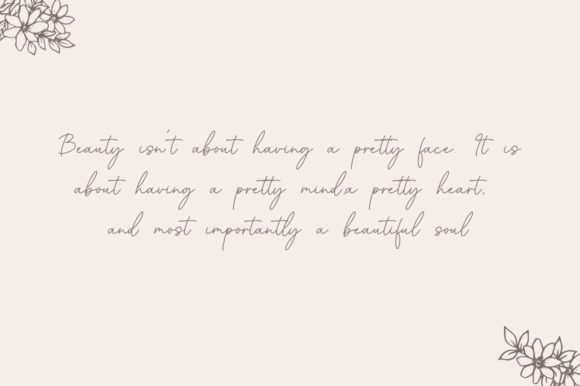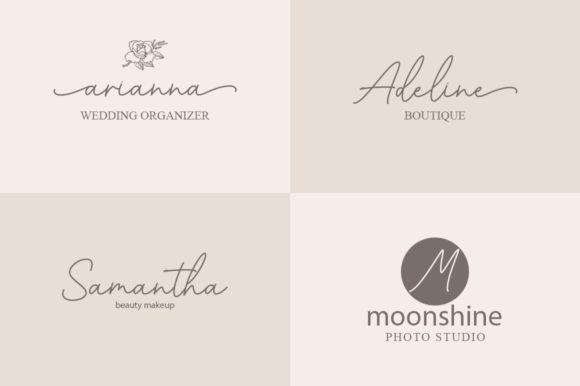
Cinthya Font
db-ku.com - Script & Handwritten -- Cinthya is a lovely and timeless handwritten font. It is the best choice for creating eye catching logos, branding and quotes. This font is PUA encoded which means you can access all of the glyphs and swashes with ease!